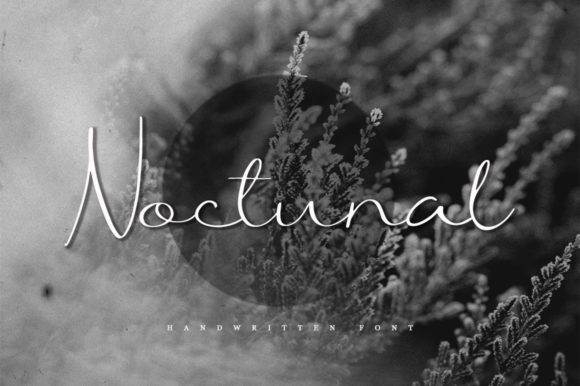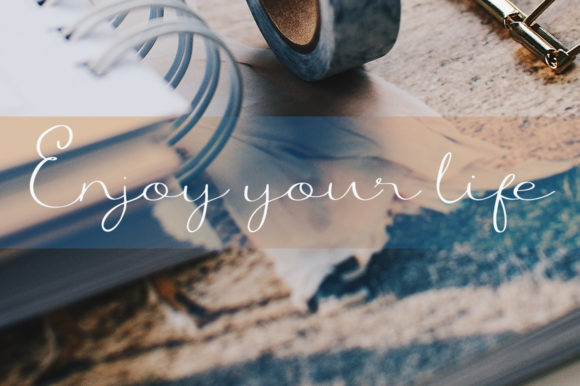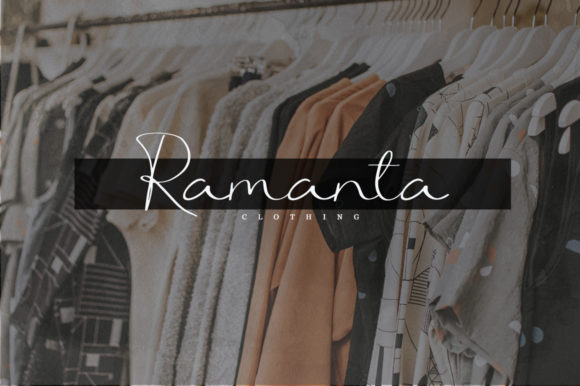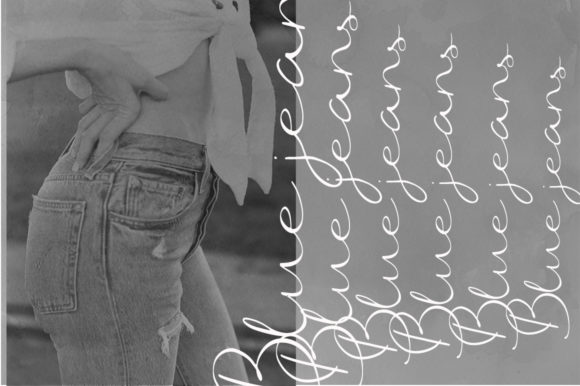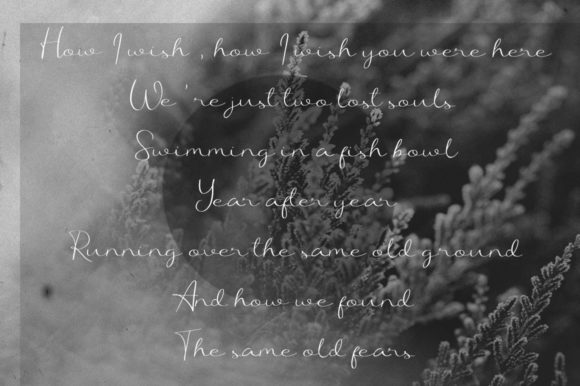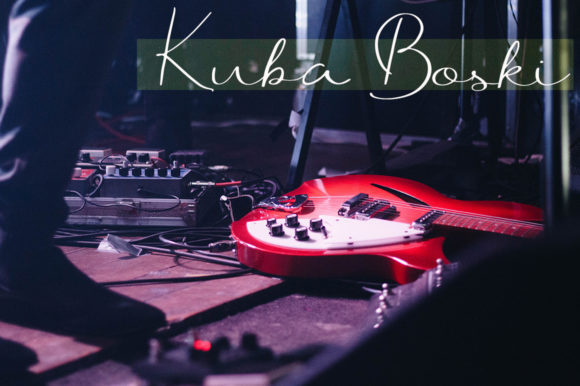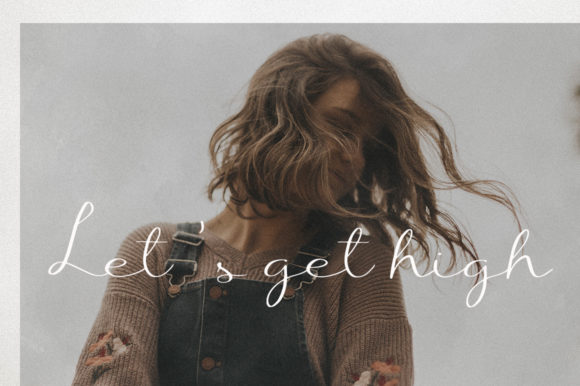
Noctunal Font
About Noctunal Font
Noctunal is a fresh, authentic and elegant font with a natural feel. It will add a touch of sophistication to any design idea.